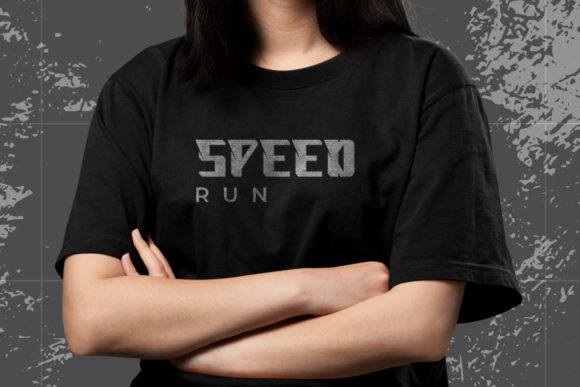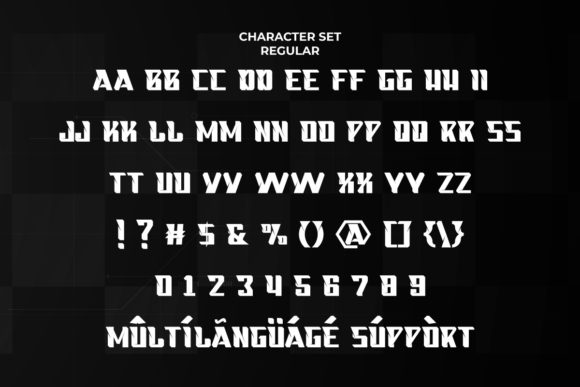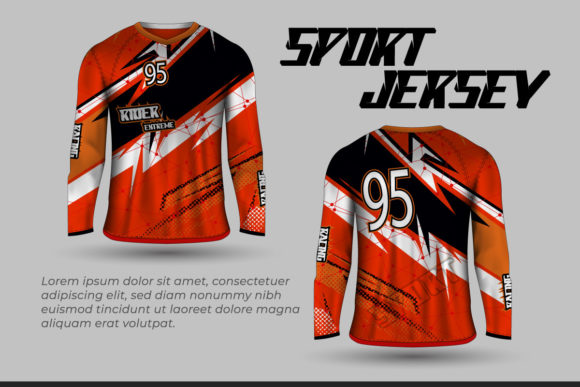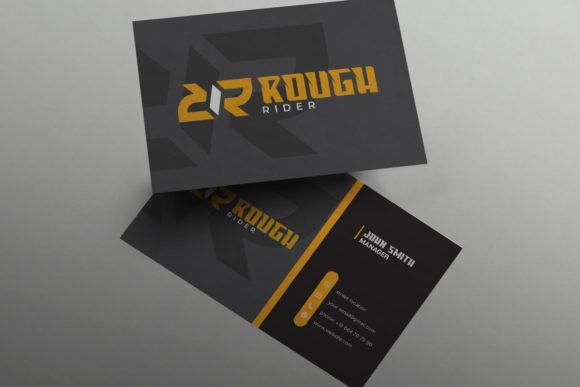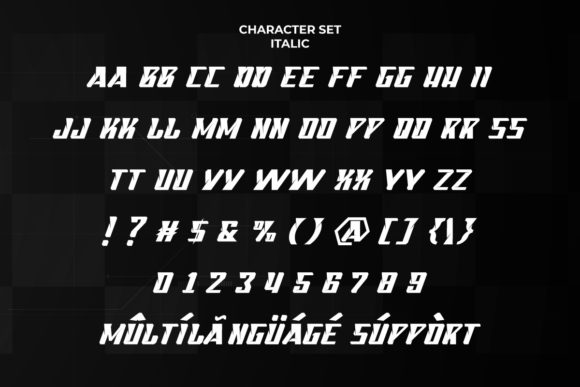
Introduction to Motorace Font
You know that moment when you’re working on a creative project and you’re stuck for the perfect design element? The one that will take your project from good to great? For many designers, that moment is often the search for the perfect font. Well, we’ve got some exciting news for you – we’ve found just the thing to elevate your designs and take them to the next level: the Motorace Font.
This cool, bold, and sporty display font is the perfect addition to any creative project. With its high-quality design and transparent background, it’s a versatile resource that can be used for a wide range of applications, from branding and labels to cards and more. And the best part? It’s available for free download, making it an invaluable resource for designers on a budget.
Key Features of Motorace Font
- High-quality, vector-based font suitable for various creative projects, including digital art and graphic design.
- Transparent background allows for seamless integration with various backgrounds and design elements.
- Includes a wide range of characters, including uppercase and lowercase letters, numbers, and special symbols.
- Designed with a unique, futuristic aesthetic, making it perfect for projects requiring a bold and edgy look.
- Resolution-independent, ensuring crisp and clear display at various sizes and resolutions.
Honest Review: Motorace Font
As a designer, I’m always on the lookout for high-quality design resources that can help bring my creative projects to life. Recently, I stumbled upon the Motorace Font, and I have to say, it’s been a game-changer for me.
- The Motorace Font has a sleek, modern design that’s perfect for a variety of creative projects, from graphic design to web development.
- One of the standout features of this font is its transparent background, which makes it incredibly versatile and easy to use.
- The Motorace Font is highly customizable, allowing me to tweak the design to fit my specific needs.
Any limitations ⚠️
- One potential drawback of the Motorace Font is that it may not be suitable for more traditional or formal designs.
- The font can be a bit overused, especially in certain niches or industries.
Overall, I’m thoroughly impressed with the Motorace Font. Its high quality, versatility, and free download make it an absolute must-have for any designer working on a creative project. I highly recommend giving it a try!
Common Use Cases for Motorace Font
The Motorace Font is perfect for:
- Creative projects such as posters, flyers, and brochures.
- Designing logos
Q: Is the Motorace Font suitable for use in digital products, such as mobile apps or video games?
A: Yes, the Motorace Font is designed to be highly legible and versatile, making it perfect for use in digital products. Its clean and modern design ensures that it will look great on a variety of screen sizes and resolutions, from small mobile devices to large desktop monitors.